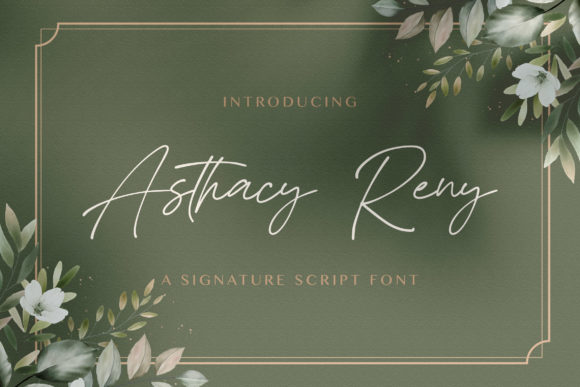
Asthacy Reny Font: Elevate Your Designs with Luxury and Elegance
Are you tired of using the same old fonts in your design projects? Look no further than Asthacy Reny, a thin lettered, stylish, and cursive script font that’s sure to add a touch of luxury to any design. With its incredibly versatile style, Asthacy Reny is perfect for designers and crafters looking to create spectacular designs that stand out from the crowd.
What is Asthacy Reny Font?
Asthacy Reny is a beautifully crafted script font that features thin, elegant letters with a cursive flair. Its stylish and sophisticated design makes it perfect for a wide range of design projects, from wedding invitations and branding materials to packaging and advertising. Whether you’re looking to create a luxurious and high-end feel or simply want to add a touch of elegance to your designs, Asthacy Reny is the perfect choice.
Key Features of Asthacy Reny Font
- Thin Lettered: Asthacy Reny’s thin letters are perfect for creating elegant and sophisticated designs that exude luxury and refinement.
- Stylish and Cursive: The font’s cursive flair adds a touch of whimsy and flair to any design, making it perfect for creative projects.
- Versatile: Asthacy Reny is incredibly versatile, making it suitable for a wide range of design projects, from print to digital.
- Luxury Feel: The font’s elegant design and luxurious feel make it perfect for high-end branding and design projects.
Benefits of Using Asthacy Reny Font
So why choose Asthacy Reny for your design projects? Here are just a few benefits of using this stunning script font:
- Adds Luxury and Elegance: Asthacy Reny adds a touch of luxury and elegance to any design project, making it perfect for high-end branding and marketing materials.
- Versatile and Flexible: The font’s versatility makes it suitable for a wide range of design projects, from print to digital.
- Easy to Read: Despite its thin letters, Asthacy Reny is easy to read, making it perfect for body text and headlines.
- Unique and Creative: Asthacy Reny’s unique and creative design makes it perfect for designers and crafters looking to stand out from the crowd.
How to Use Asthacy Reny Font in Your Designs
Using Asthacy Reny in your designs is easy. Here are a few tips to get you started:
- Pair with Bold Fonts: Pair Asthacy Reny with bold fonts for a striking contrast that adds visual interest to your designs.
- Use for Headlines and Titles: Use Asthacy Reny for headlines and titles to add a touch of luxury and elegance to your designs.
- Try Digital and Print: Try using Asthacy Reny in both digital and print designs to see how it works in different contexts.
In conclusion, Asthacy Reny is a stunning script font that’s perfect for designers and crafters looking to add a touch of luxury and elegance to their designs. With its thin lettered, stylish, and cursive design, Asthacy Reny is incredibly versatile and suitable for a wide range of design projects. Whether you’re looking to create high-end branding materials, wedding invitations, or packaging, Asthacy Reny is the perfect choice. So why not give it a try and see how it can elevate your designs?
Tips and Tricks for Using Asthacy Reny Font
Here are a few final tips and tricks for getting the most out of Asthacy Reny:
- Experiment with Different Sizes: Experiment with different sizes and scales to see how Asthacy Reny works in different contexts.
- Pay Attention to Kerning: Pay attention to kerning and letter spacing to ensure that your text looks elegant and refined.
- Try with Images: Try pairing Asthacy Reny with images and graphics to add visual interest to your designs.